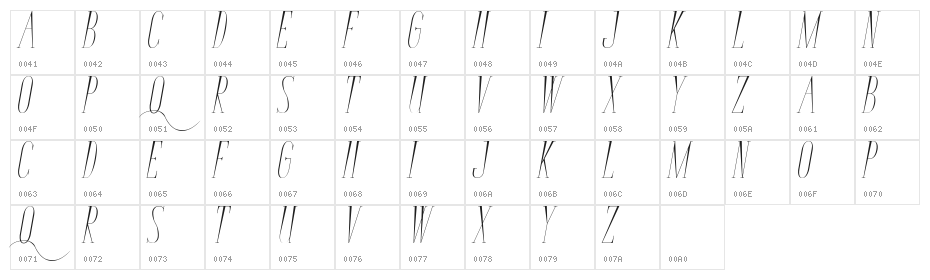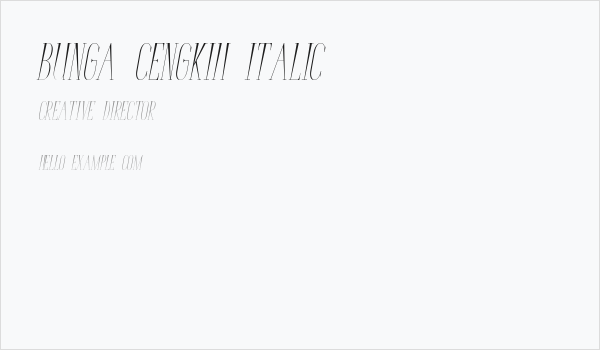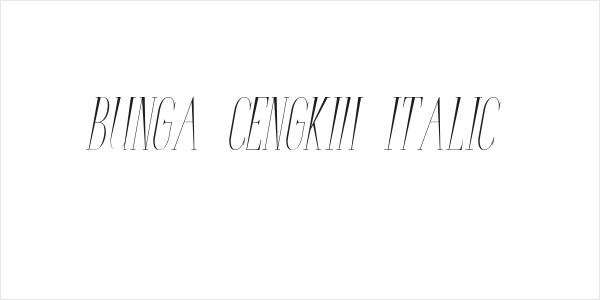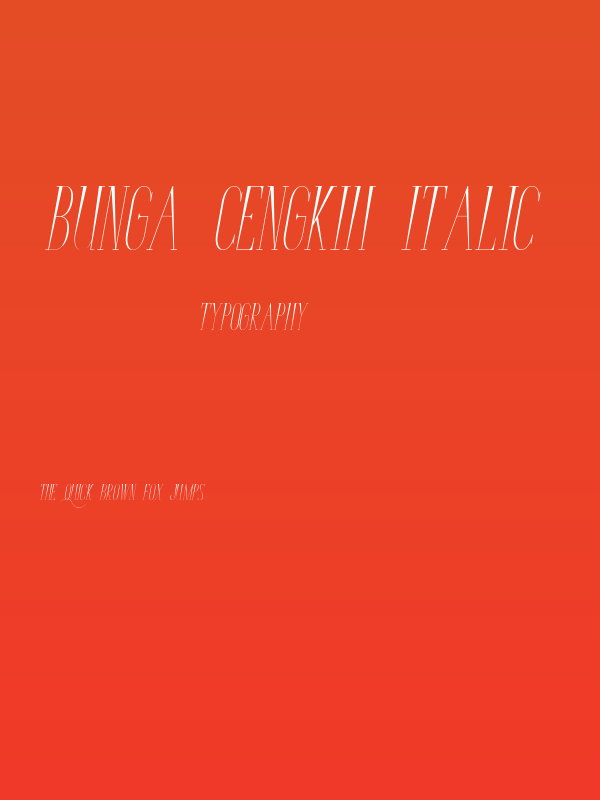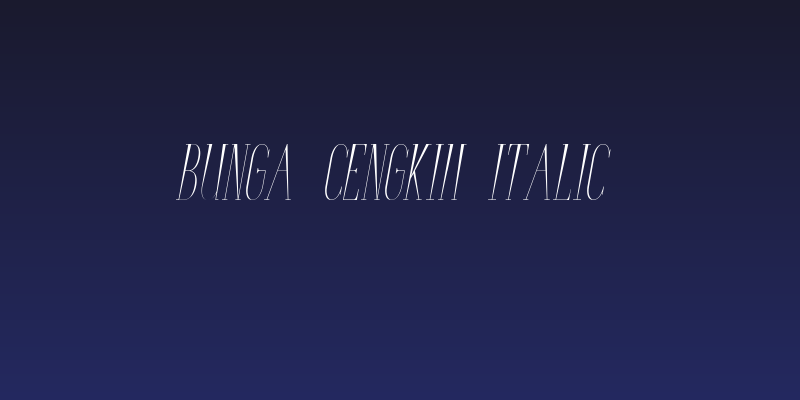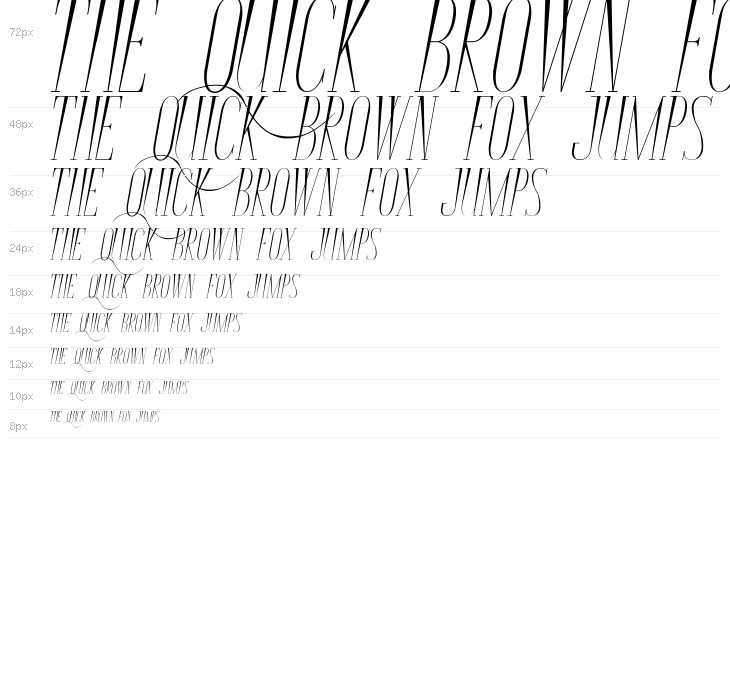
Bunga Cengkih Italic Font
Bunga Cengkih Italic Description
This font features an elegant and sophisticated italic style, characterized by its tall, narrow letterforms and high contrast between thick and thin strokes. The serifs are delicate and refined, adding a touch of classic elegance to the overall design. The italic slant gives the font a sense of movement and fluidity, making it suitable for projects that require a touch of sophistication and style. The spacing between characters is tight, which enhances its sleek and modern appearance. This font is ideal for use in high-end branding, editorial design, and luxury product packaging.
| Overall Style | Elegant, Sophisticated |
| Use Case | Headlines, Logos, Editorial design |
| Proposed Projects | High-end branding, editorial design, luxury product packaging. |